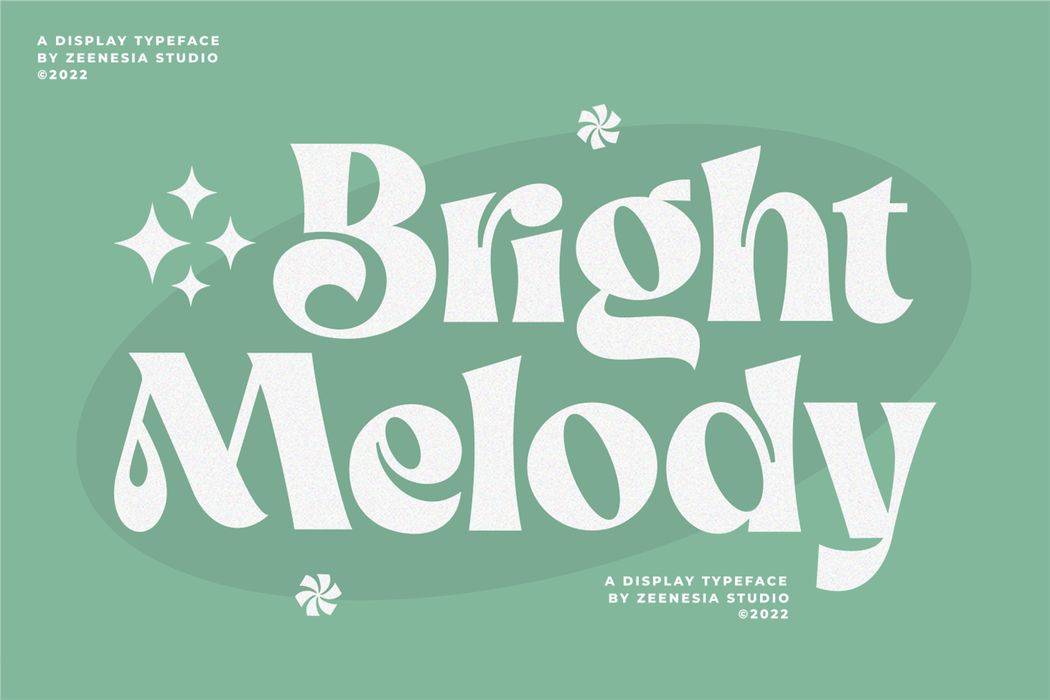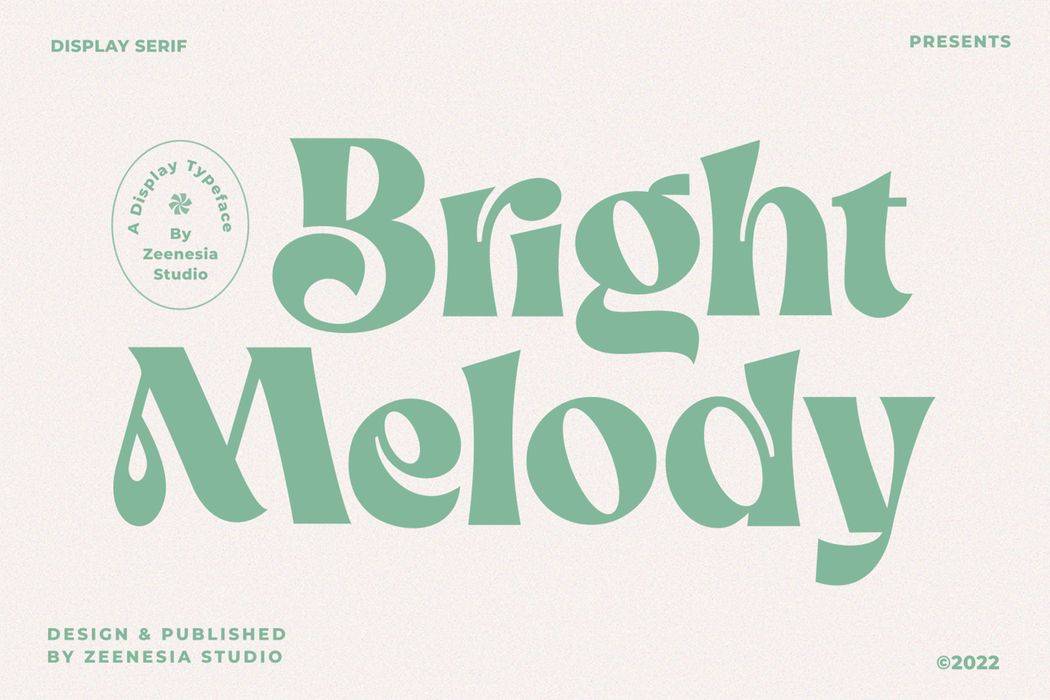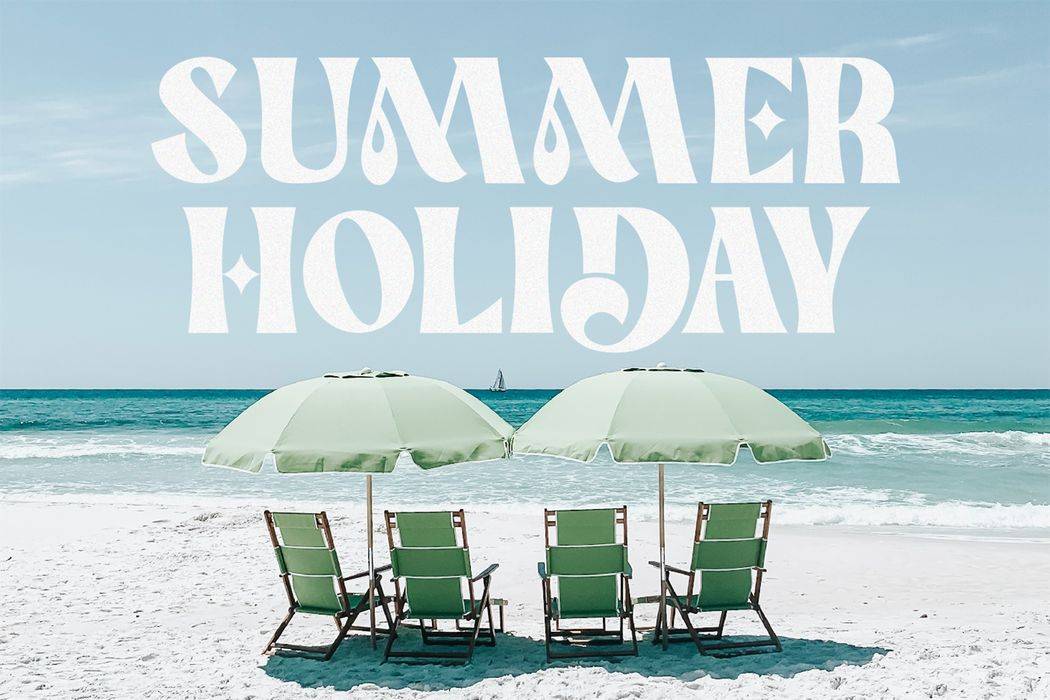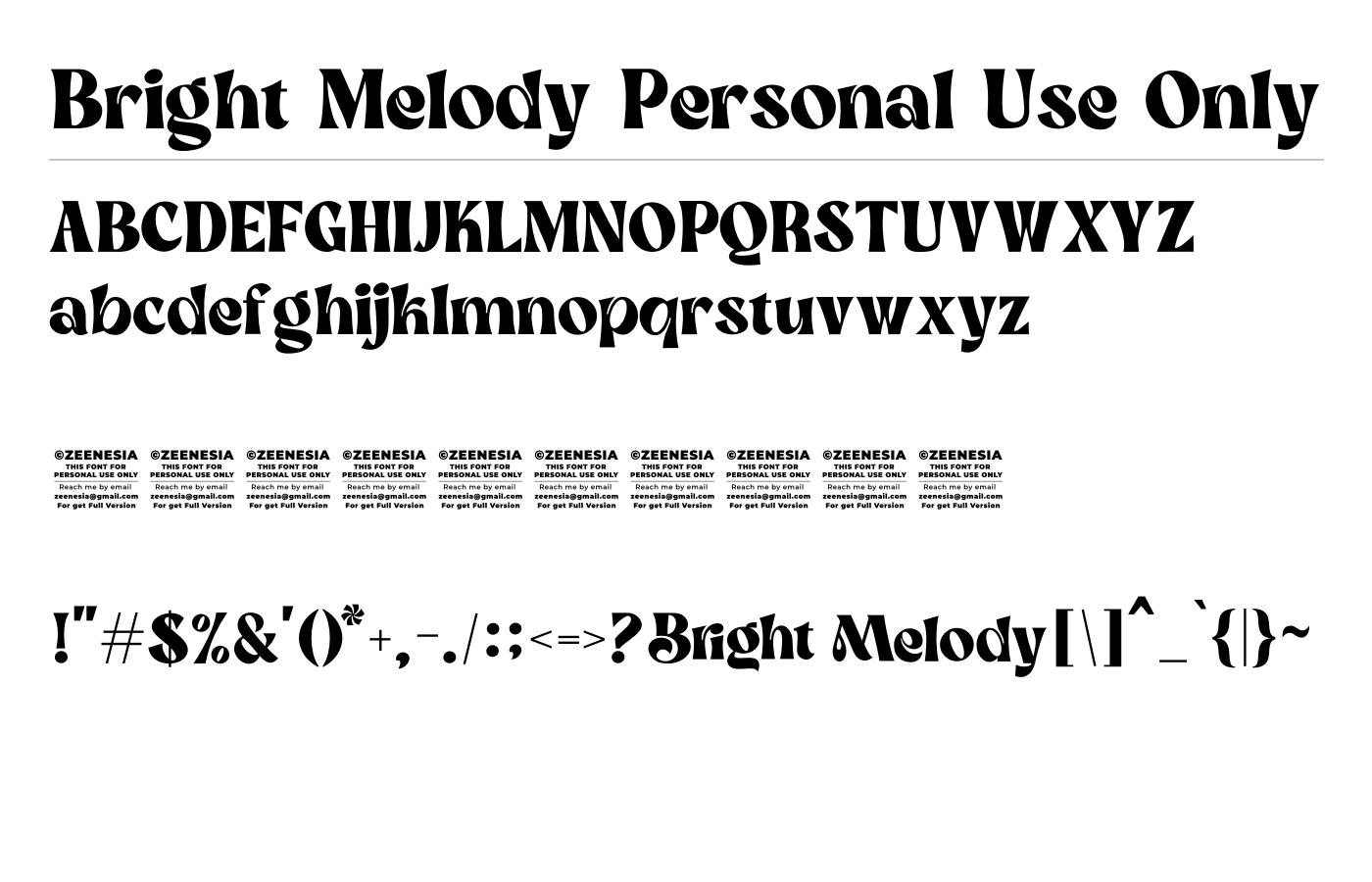
Bright Melody is a bold serif font with a playful and artistic character, featuring thick, exaggerated serifs and high contrast between thick and thin strokes. Its unique letterforms and slightly whimsical curves make it perfect for eye-catching headlines, branding, and creative projects where a fun yet strong personality is desired. This font works well in designs that aim to be memorable, lively, and full of character.
Bright Melody Font
About Bright Melody Font